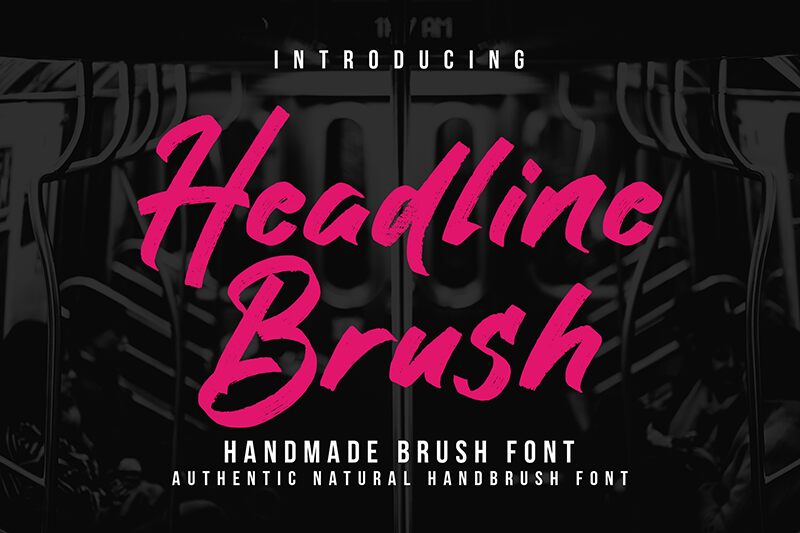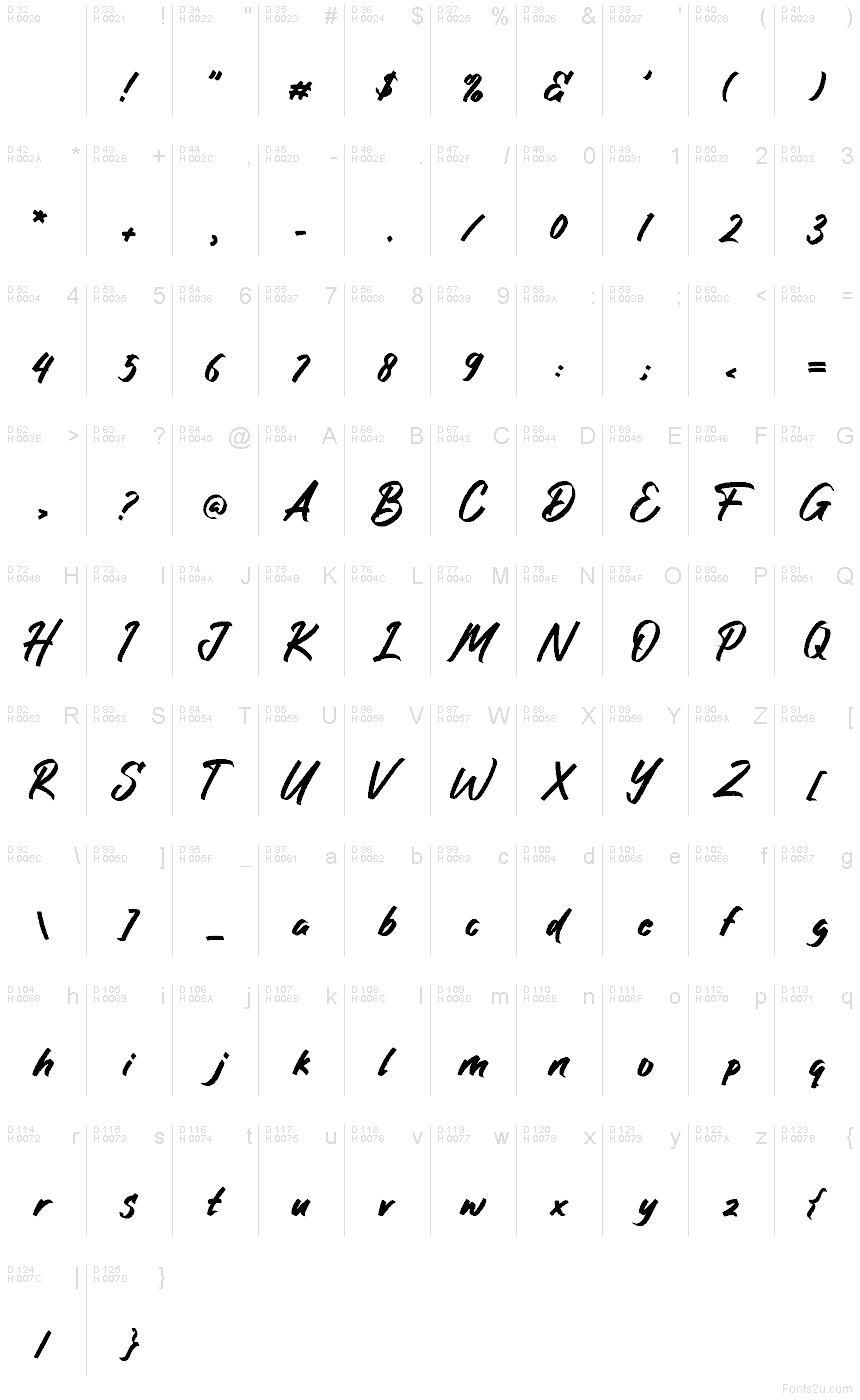
Headline Brush Demo
Headline Brush font by MJB Letters steals the show with its expressive and artistic brush style. This textured free font gracefully combines casual elegance with a dynamic flourish in each stroke. It’s the perfect choice for communicating a bold, creative message that immediately demands attention.